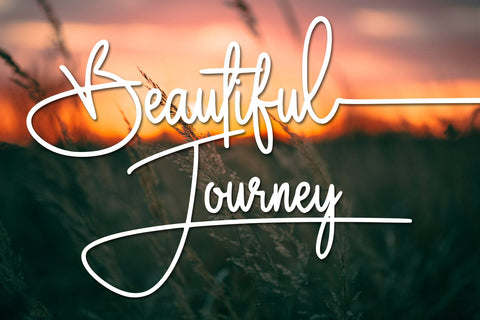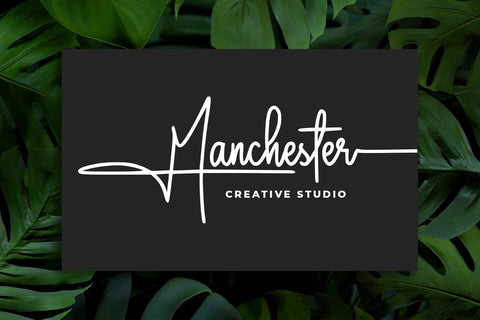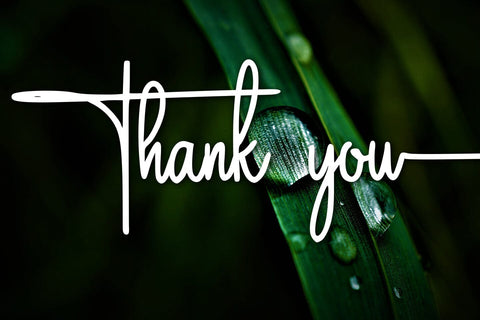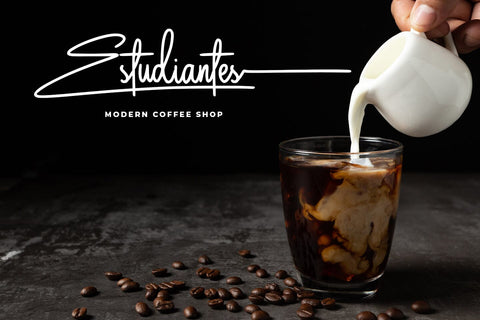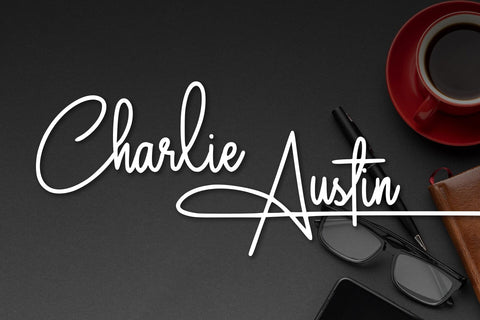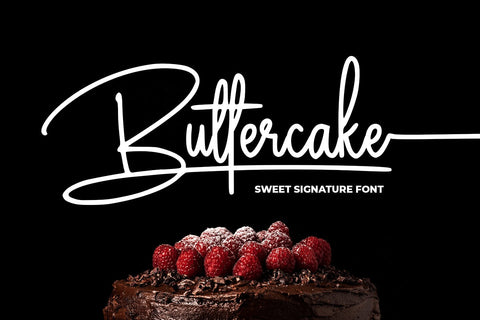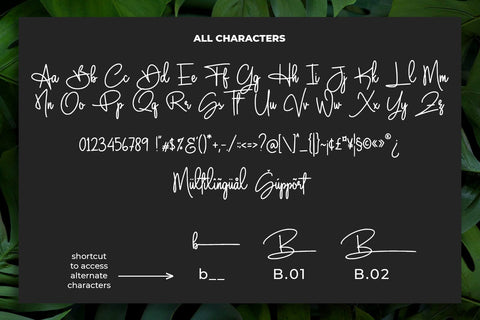
Buttercake
BUTTERCAKE
- sweet signature font -
BUTTERCAKE is a monoline signature font.
It is great for logotype, branding, packaging, t-shirt designs, tote bag designs, cards, banners, social media, and more.
- Numeral
- Alternate of Uppercase
- Swash
- Punctuation